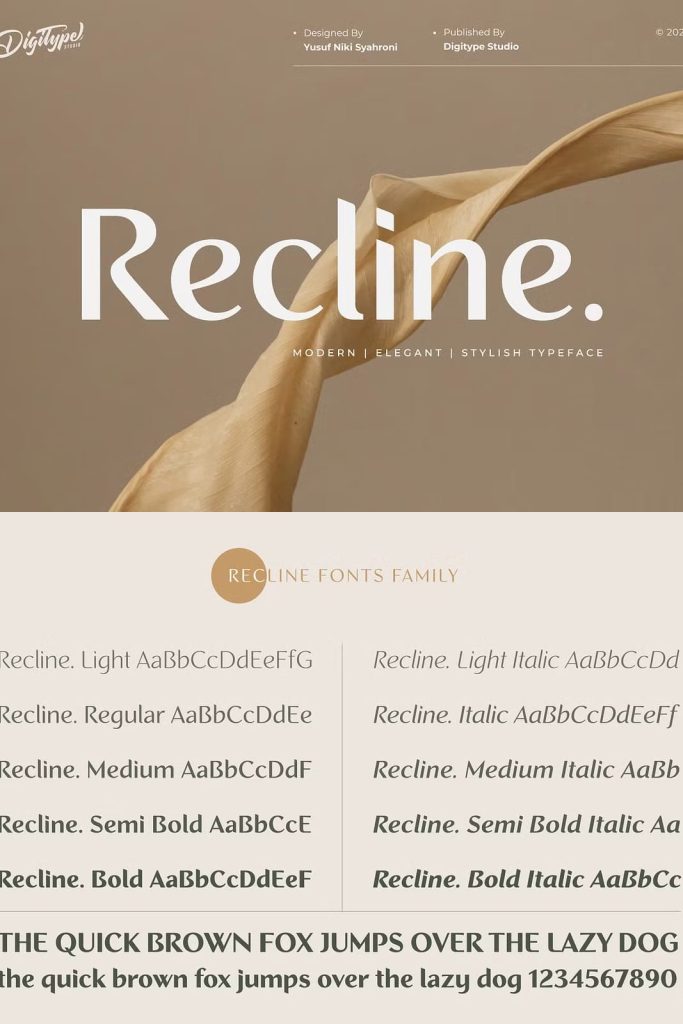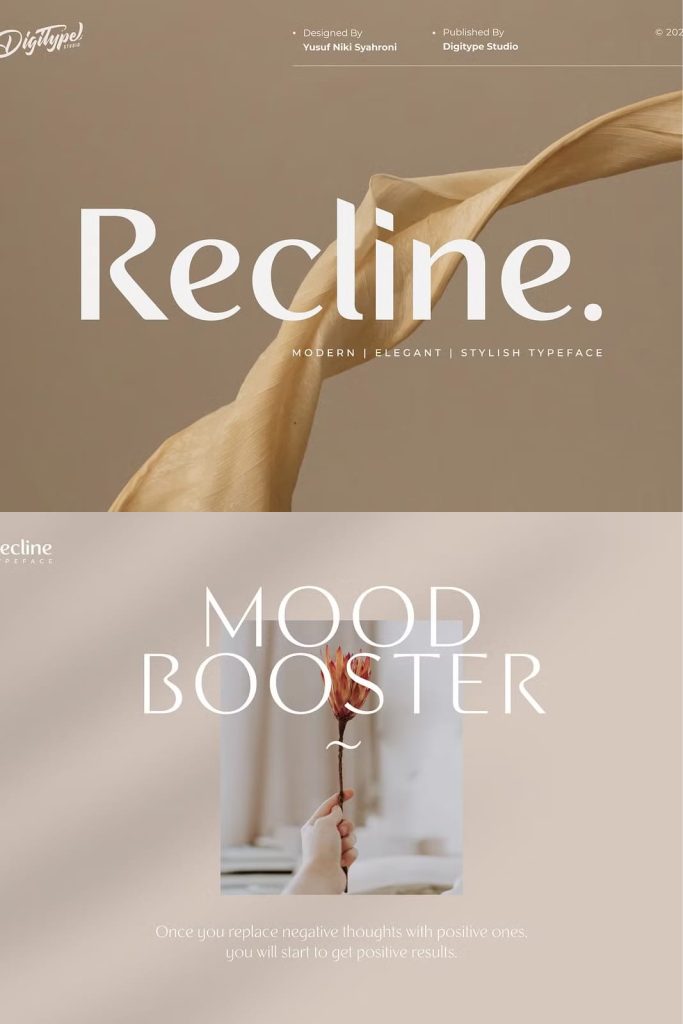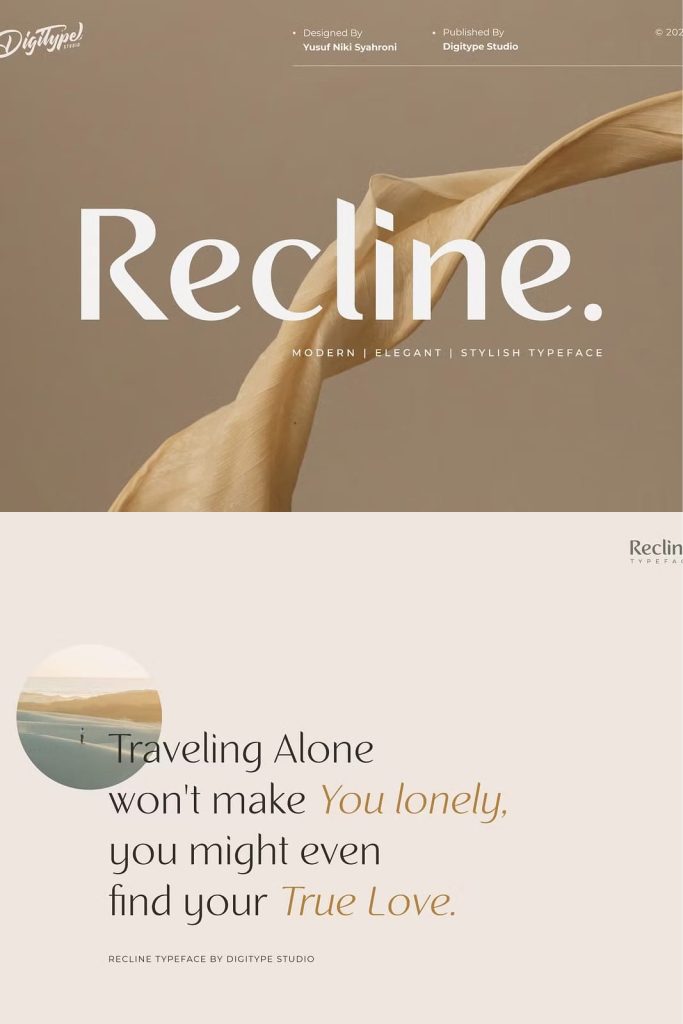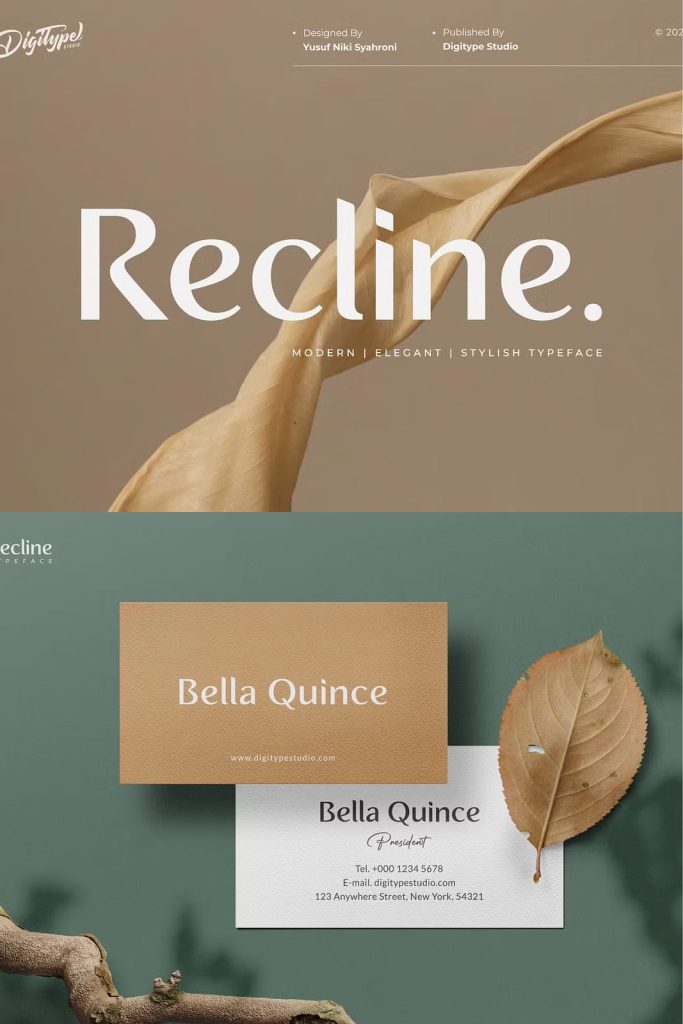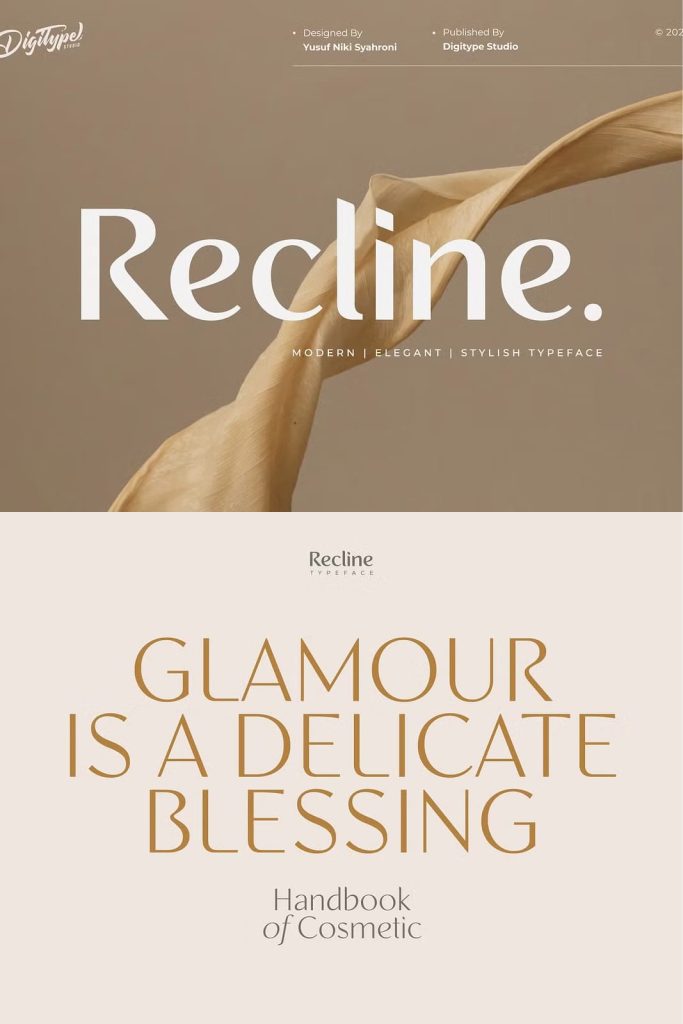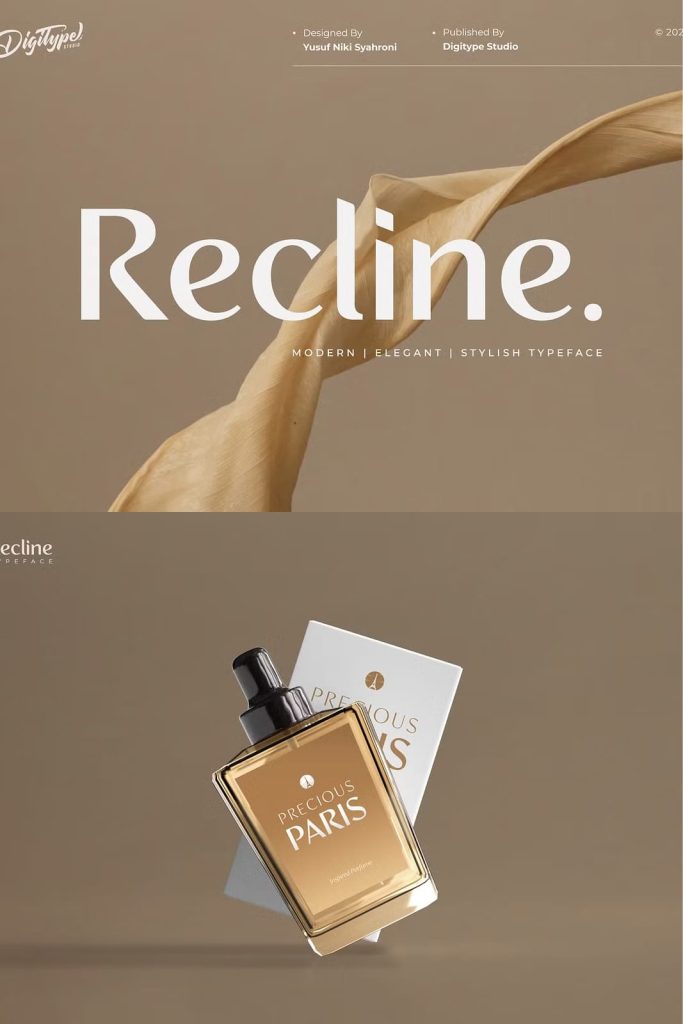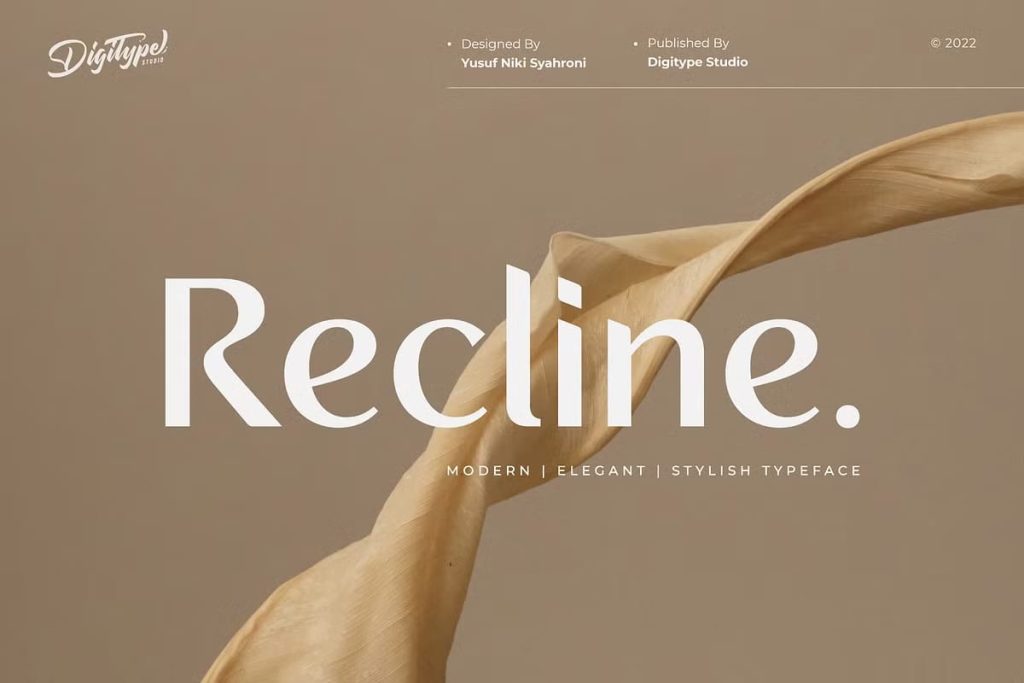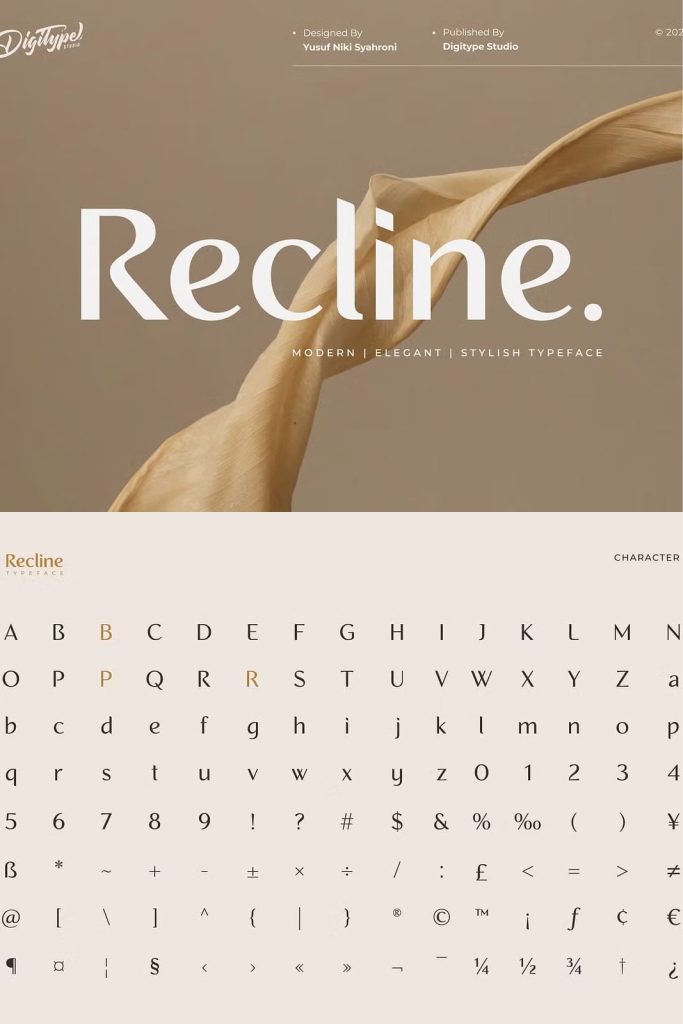
Recline is a sophisticated modern typeface designed to meet the needs of creative professionals and businesses alike. With its sleek lines, balanced proportions, and versatile design, Recline provides an ideal blend of functionality and beauty. This typeface features 10 distinct weights and 5 styles—both straight and angled—allowing designers to adapt it seamlessly to any visual project.
Modern Style with Exceptional Flexibility
The modern style of Recline ensures it fits a wide range of design purposes. Whether you are working on a corporate identity, website design, or editorial layout, this typeface offers the versatility to make your project stand out. Its contemporary appeal is enhanced by clean letterforms and precise spacing, which contribute to clear readability and aesthetic harmony. Each weight, from thin to bold, retains the font’s core personality while offering flexibility for various contexts and moods.
Perfect Typeface for Branding and Visual Identity
When building a brand, typography plays a vital role in establishing visual consistency. Recline provides the strength and elegance needed to create memorable branding materials. It works flawlessly for logos, business cards, stationery, product labels, and packaging. Its wide range of weights gives designers complete control over tone and emphasis, allowing them to communicate messages with confidence and style.
Designed for Print and Digital Excellence
Recline is crafted to deliver excellence in both print and digital media. Its refined design ensures that it performs beautifully on high-resolution displays as well as in printed materials such as magazines, books, brochures, and advertisements. Each letterform has been carefully adjusted for clarity, making Recline an excellent choice for long-form reading or striking headlines.
Why Choose Recline Typeface?
- 10 Flexible Weights – Perfect for a wide range of visual tones, from light and subtle to bold and commanding.
- 5 Unique Styles – Includes both straight and angled versions for dynamic design flexibility.
- Modern and Elegant – A clean design that complements both contemporary and classic compositions.
- Professional Versatility – Ideal for corporate, editorial, digital, and advertising purposes.
- High Readability – Balanced letterforms designed for clarity across all media formats.
Applications of Recline Typeface
Recline’s design versatility makes it suitable for numerous creative and commercial uses. Whether you’re designing a sophisticated corporate brochure, developing a striking magazine layout, or creating an eye-catching website interface, Recline adapts effortlessly. Its well-structured geometry ensures a professional look in formal presentations, while its artistic edge makes it equally powerful in creative projects.
Enhance Your Designs with Modern Sophistication
Every element of Recline was developed with the modern designer in mind. The typeface provides a harmonious combination of structure and fluidity, giving you the freedom to express brand stories through typography. With its luxurious balance between simplicity and detail, Recline enhances visual communication, making every project feel polished, intentional, and distinctive.
Conclusion: Bring Modern Elegance to Every Project
Recline Modern Typeface is more than just a font—it’s a tool for creative expression. Whether you’re creating editorial content, branding materials, or digital interfaces, Recline offers unmatched style and adaptability. Its range of weights and angled variations allows you to experiment freely, ensuring your work remains both unique and professional. Choose Recline to elevate your next project with a modern, elegant, and highly functional typographic solution.